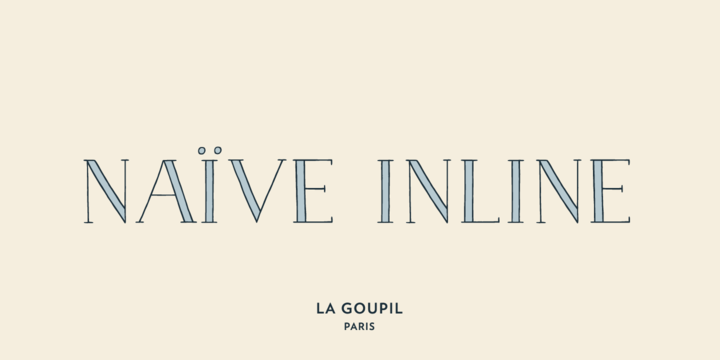
Naïve Inline
Naïve Inline can be referred to as a serif handwritten font designed by Fanny Coulez for La Goupil Paris. The all new Parisian typography has three weights that can be beautified with a ribbed, bicolor interior, or full to ensure a contemporary and remarkable feeling. Superimposing the 2 elements; the weight above, the interior below … Read more